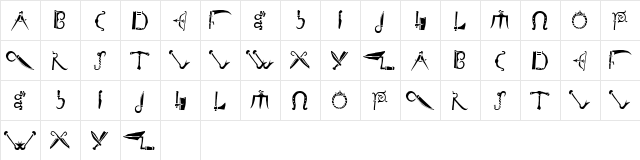
DeBalmeInitials Regular
Design Context for DeBalmeInitials Typeface
DeBalmeInitials is a composed and adaptable typeface that performs quietly and consistently across a wide range of design contexts.